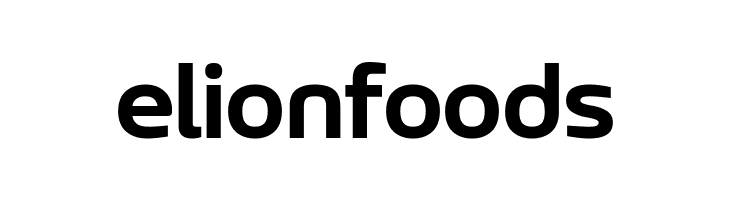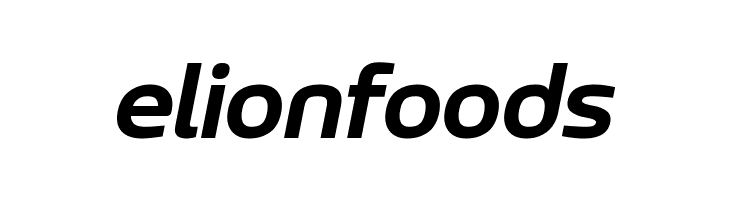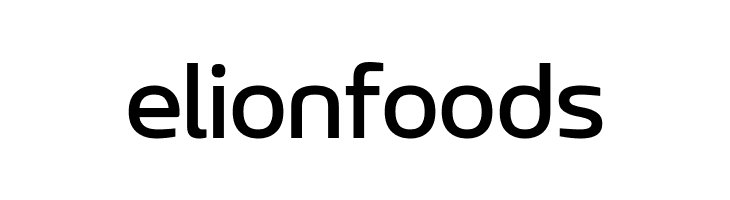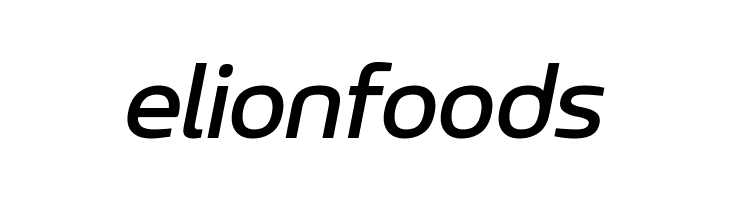
A bold, italicized font with dynamic and flowing letterforms.
A modern italic font with clean lines and a dynamic slant.
A sleek, modern font with clean lines and a minimalist aesthetic.
A sleek, light, and italicized font with a modern and elegant style.